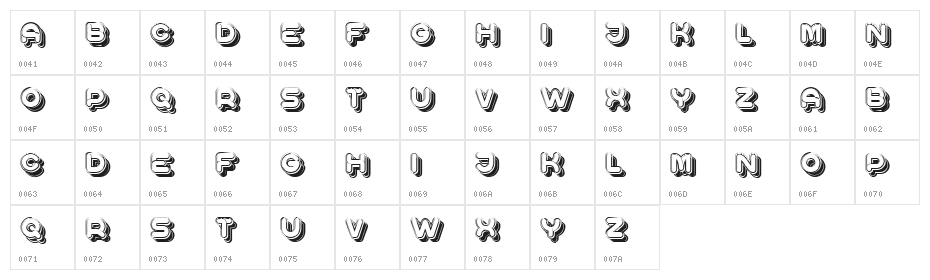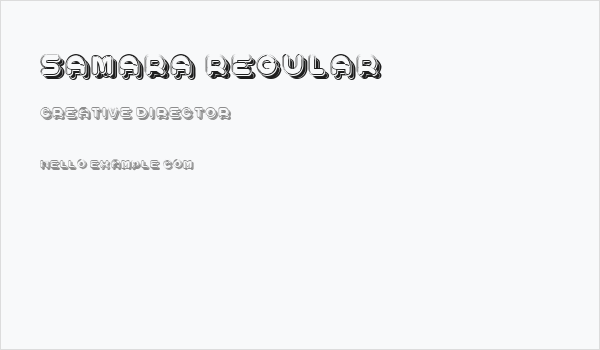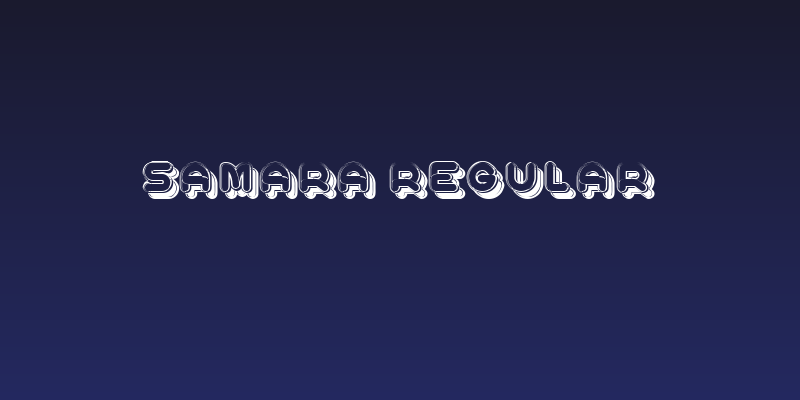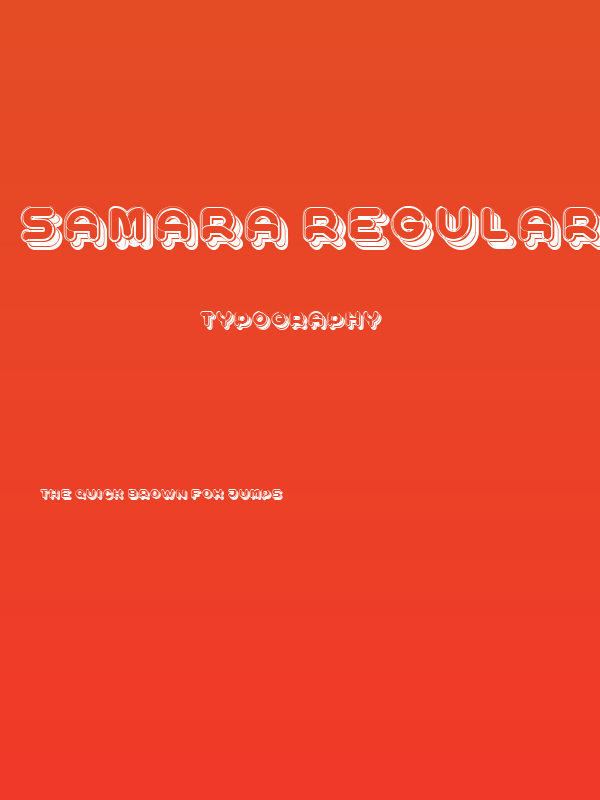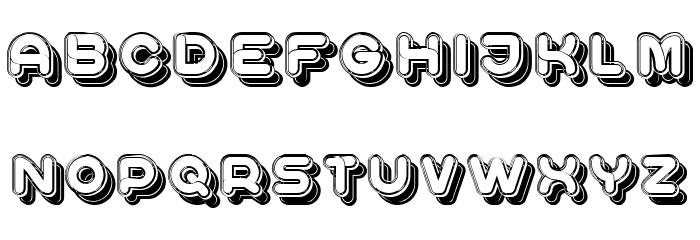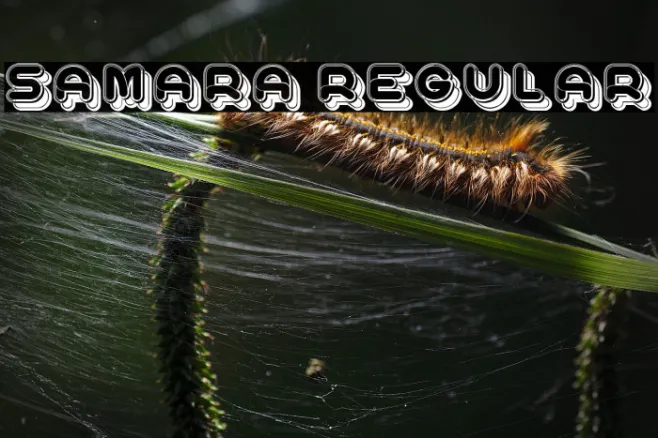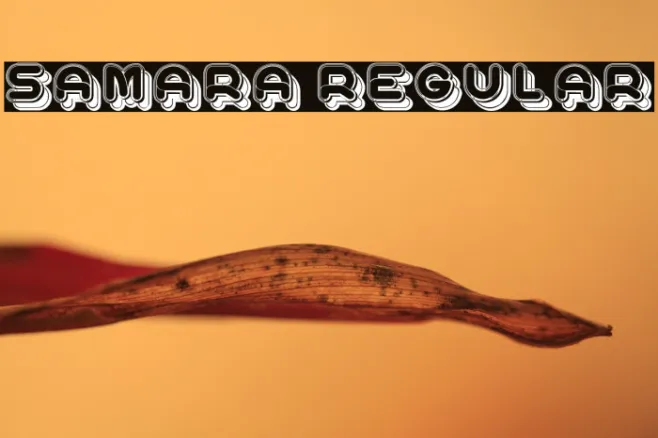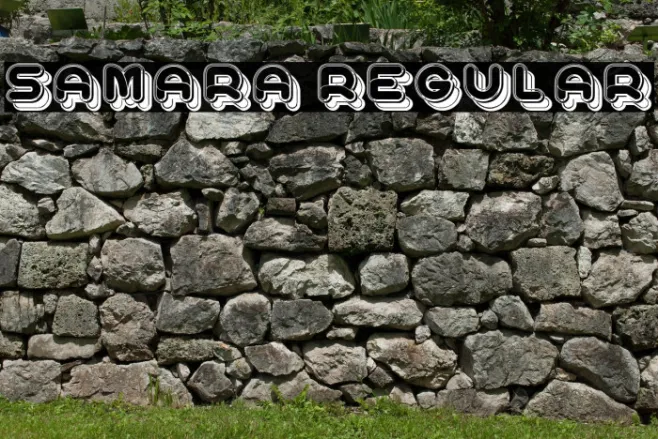
Samara Regular Font
Samara Regular Description
This font features a bold, three-dimensional style with a playful and dynamic appearance. Each character is outlined with a thick black shadow, creating a striking contrast against the white fill. The letters are rounded and have a bubble-like quality, adding to the overall whimsical and fun aesthetic. The font's design is consistent across both uppercase and lowercase letters, maintaining a cohesive look. Its unique style makes it stand out, making it ideal for projects that require a bold and eye-catching typeface.
| Overall Style | Playful, Modern |
| Proposed Projects | Ideal for children's book covers, playful branding, posters, and event invitations. |